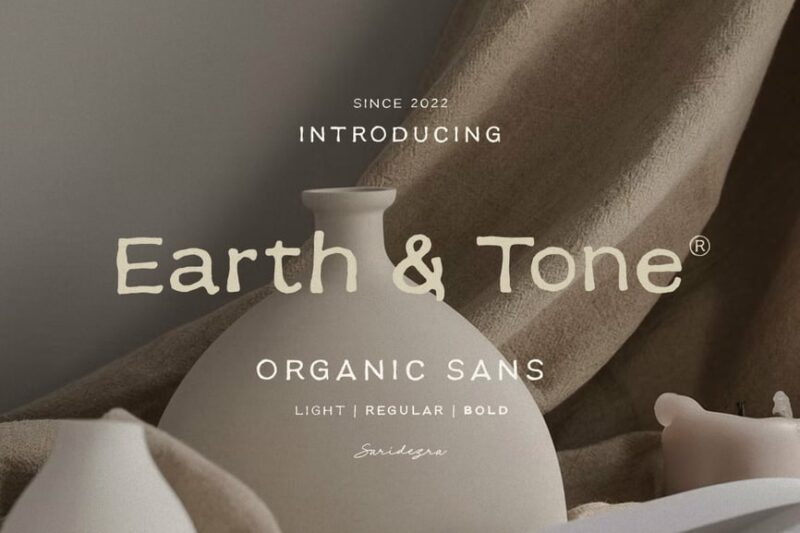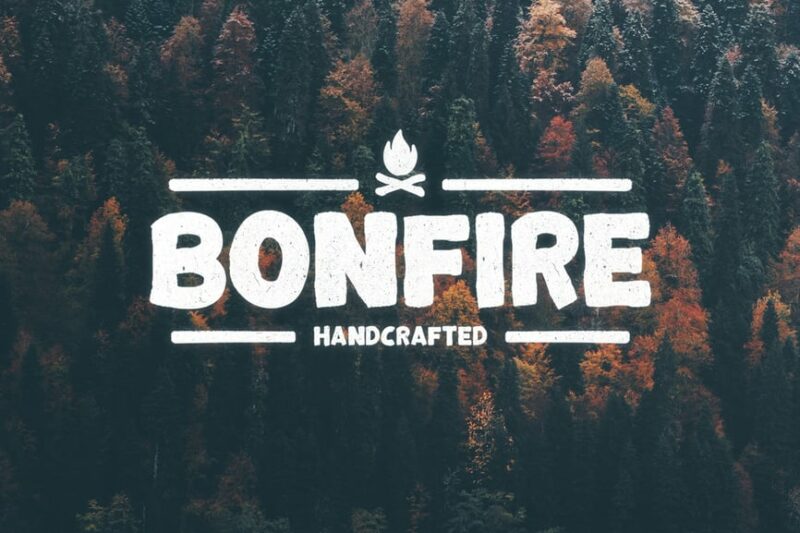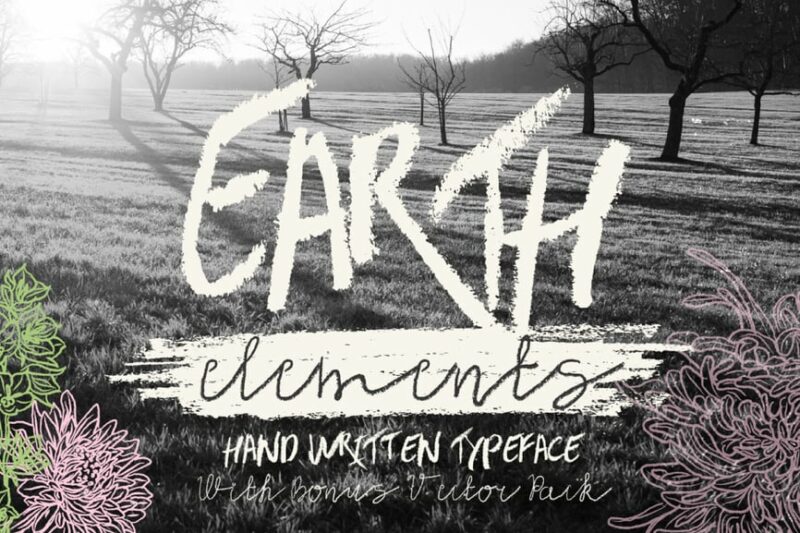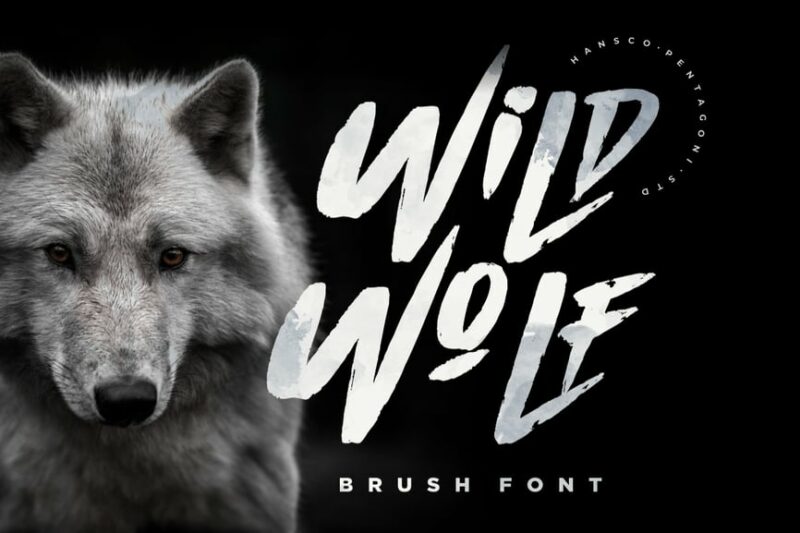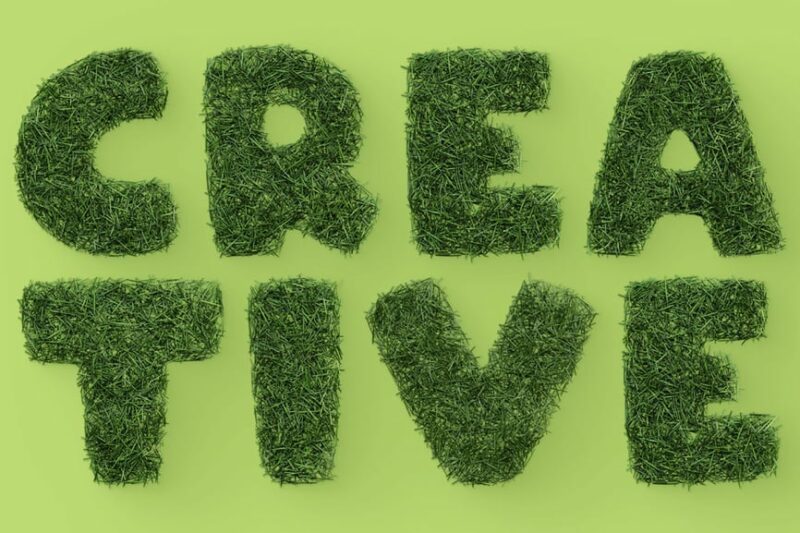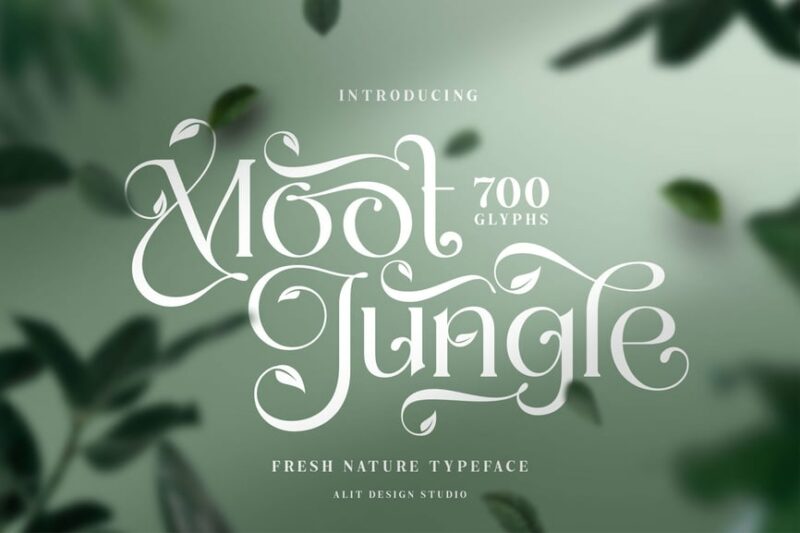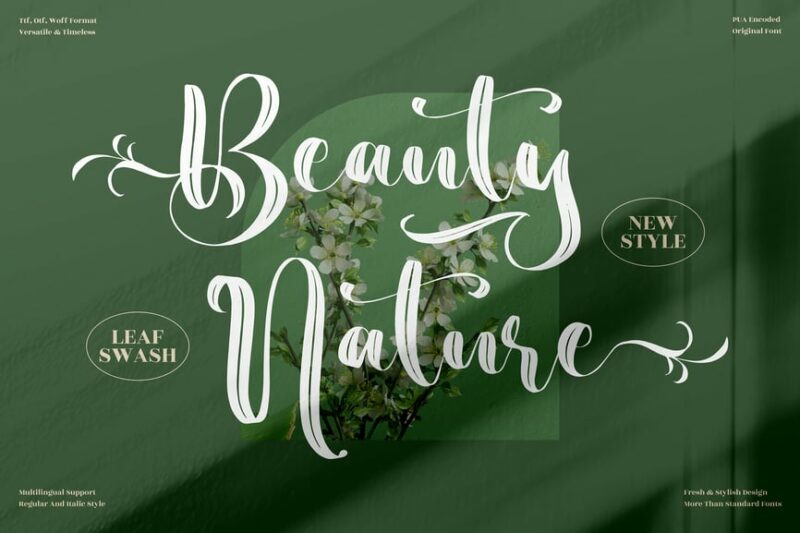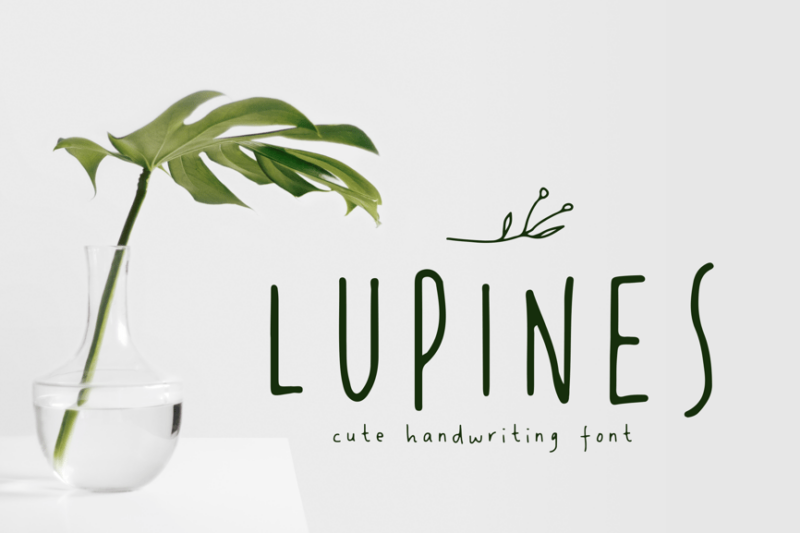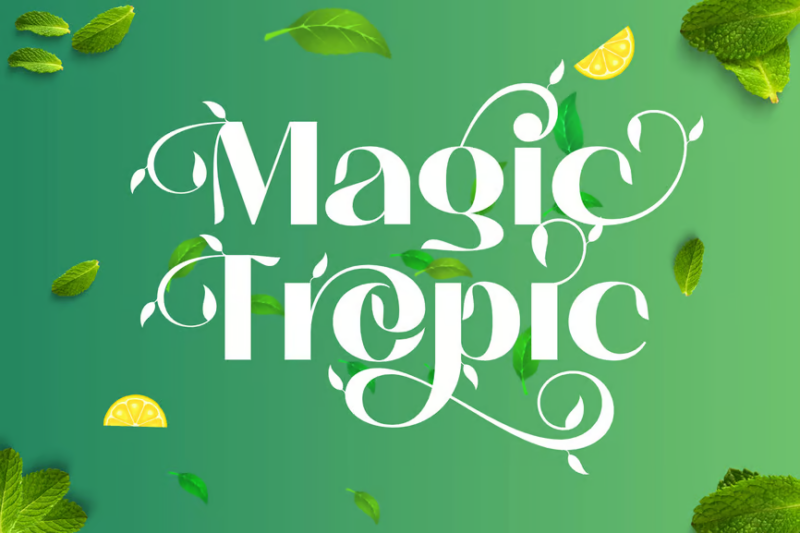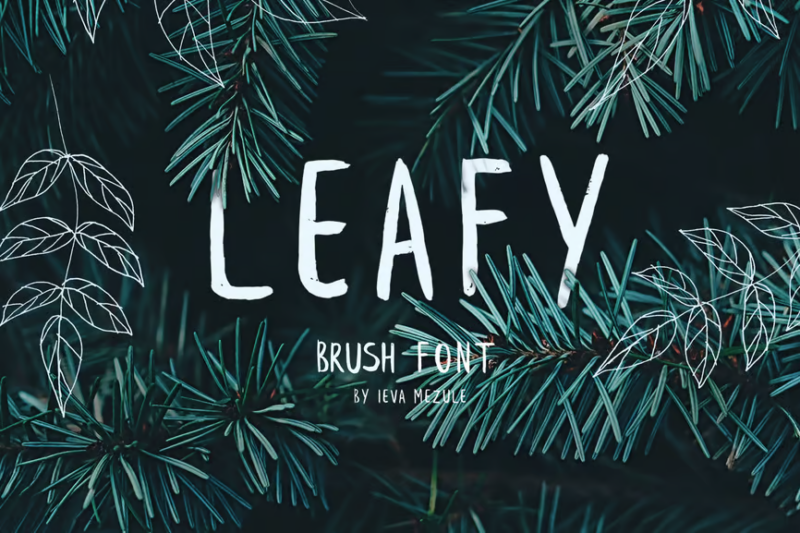
As designers, we’re constantly searching for fonts that can bring an authentic, organic feel to our projects. In 2026, earthy fonts are seeing a huge resurgence, driven by growing interest in sustainability, natural wellness, and eco-friendly design. These typefaces capture the raw, grounded essence of nature while delivering powerful visual impact.
Earthy fonts typically feature irregular, organic shapes and textures that mirror elements found in nature – think rough bark, worn stone, or hand-carved wood. They bring a sense of authenticity and connection to the natural world that’s increasingly rare in our digital age.
The Most ‘Grounded’ Earthy Fonts of 2025
Earth Tone – Organic Sans Family
Earth Tone is a versatile sans-serif font family with an organic, handmade feel. Its natural curves and imperfections make it perfect for eco-friendly branding, wellness products, and earthy designs.
Bonfire Typeface
Bonfire is a wild and energetic script font with a brush-like texture. Its dynamic strokes and irregular baseline evoke a sense of adventure, making it ideal for outdoor-themed designs and rustic branding.
Earth Elements Type
Earth Elements Type is a grungy, handwritten font that embodies the raw essence of nature. Its weathered appearance and uneven strokes make it perfect for creating authentic, earthy designs with a touch of ruggedness.
Wild Wolf
Wild Wolf is a bold, rough-textured script font that captures the untamed spirit of nature. Its strong, expressive strokes and natural imperfections make it ideal for wilderness-themed designs and rugged branding.
Grass Bold – 3D Color SVG Font
Grass Bold is a unique 3D SVG font with a colorful, grass-like texture. Its playful, nature-inspired design makes it perfect for creating eye-catching headlines and logos, especially for eco-friendly or outdoor-related projects.
The Moot Jungle Nature Typeface
The Moot Jungle is a serif typeface with intricate leaf-like details incorporated into its design. This font brings a touch of nature to your typography, making it ideal for botanical-themed projects and eco-conscious branding.
Beauty Nature Beautiful Script
Beauty Nature is an elegant script font that combines flowing lines with natural motifs. Its graceful curves and organic flourishes make it perfect for high-end nature-inspired branding, wedding stationery, and beauty products.
Magic Tropic
Magic Tropic is a whimsical decorative font that captures the essence of tropical paradise. Its playful letterforms and exotic vibe make it ideal for summer-themed designs, beach resorts, and tropical product branding.
LUPINES – Cute Skinny Handwriting Font
LUPINES is a charming, thin handwriting font with a delicate and feminine touch. Its slender strokes and cute character make it perfect for personal branding, blog headers, and designs targeting a youthful audience.
Leafy Brush Font
Leafy Brush Font combines natural leaf shapes with brush-like strokes to create a unique, organic typeface. Its versatile design includes decorative symbols, making it perfect for nature-themed logos, packaging, and eco-friendly branding.
Grind Demolished
Grind Demolished is a strong, edgy decorative font with a worn-out texture. Its bold, gritty appearance makes it ideal for sports-related designs, urban streetwear brands, and projects requiring a tough, aggressive aesthetic.
Moreganic – Organic Font
Moreganic is a natural-looking sans-serif font with subtle organic imperfections. Its hand-drawn quality and clean lines make it versatile for eco-friendly branding, artisanal product packaging, and designs that require a touch of authenticity.
Pinefolk – Organic Sans
Pinefolk is a charming organic sans-serif font with a handcrafted feel. Its natural curves and slight irregularities make it perfect for creating warm, inviting designs for farm-to-table restaurants, organic products, and nature-inspired brands.
Wild Nature Font
Wild Nature Font is a decorative typeface that incorporates animal and plant motifs into its letterforms. This unique font is perfect for wildlife-themed projects, nature documentaries, and designs that aim to showcase the beauty of the natural world.
Rimba Andalas
Rimba Andalas is a decorative font with a tribal, native-inspired design. Its intricate patterns and symbolic elements make it ideal for creating exotic, culturally-rich designs for travel agencies, ethnic restaurants, or world music events.
Oregon Vintage Display Font
Remember, the key to successfully using earthy fonts lies in understanding their strengths and limitations. Used thoughtfully, they can transform your designs from merely appealing to deeply resonant, creating meaningful connections between your audience and the natural world.